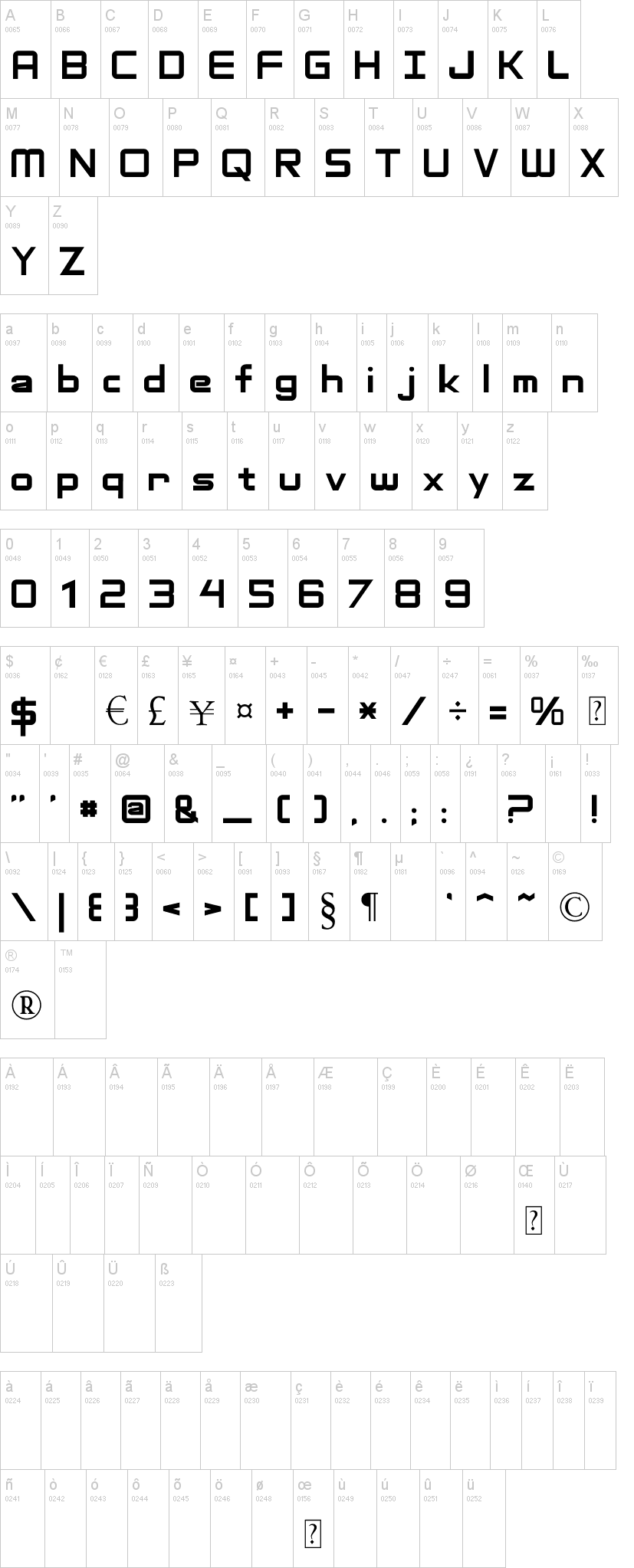
Шрифт Adventure Subtitles
Obvious companion font to 'Adventure', for making the subtitles of your work. Based on the subtitles from the Indiana Jones movie series.